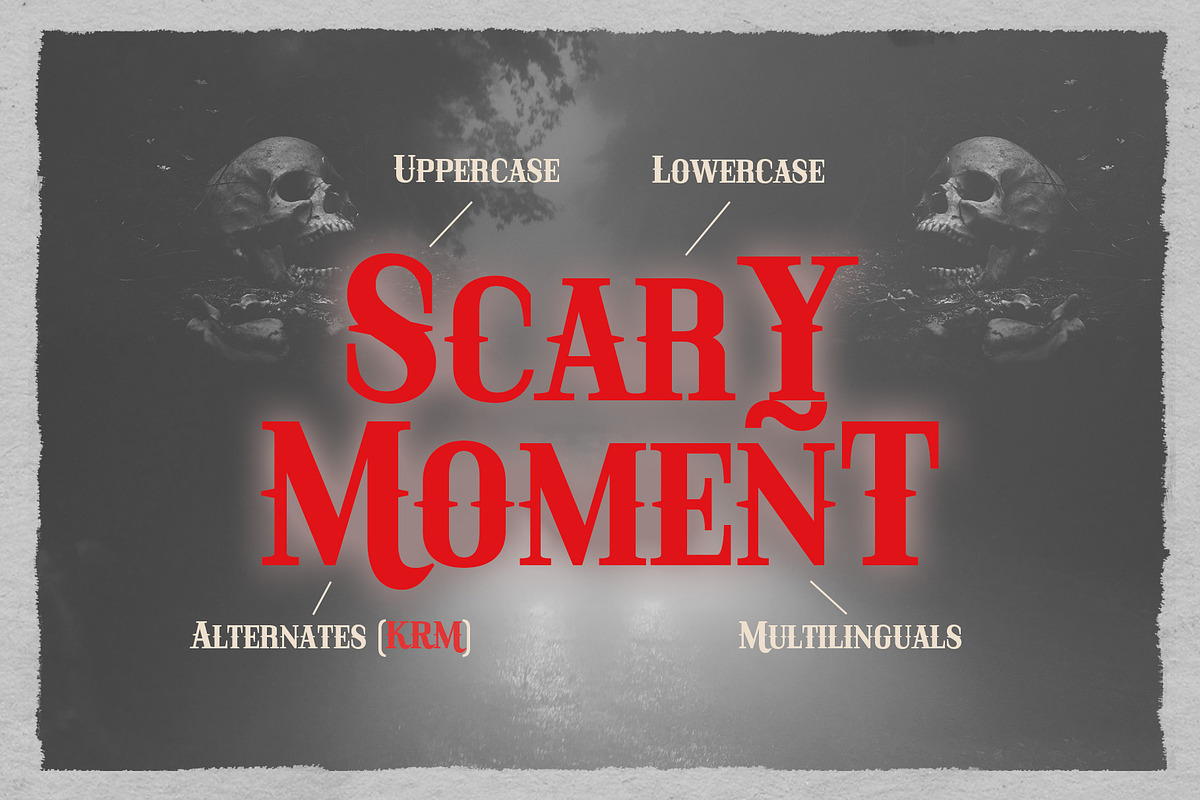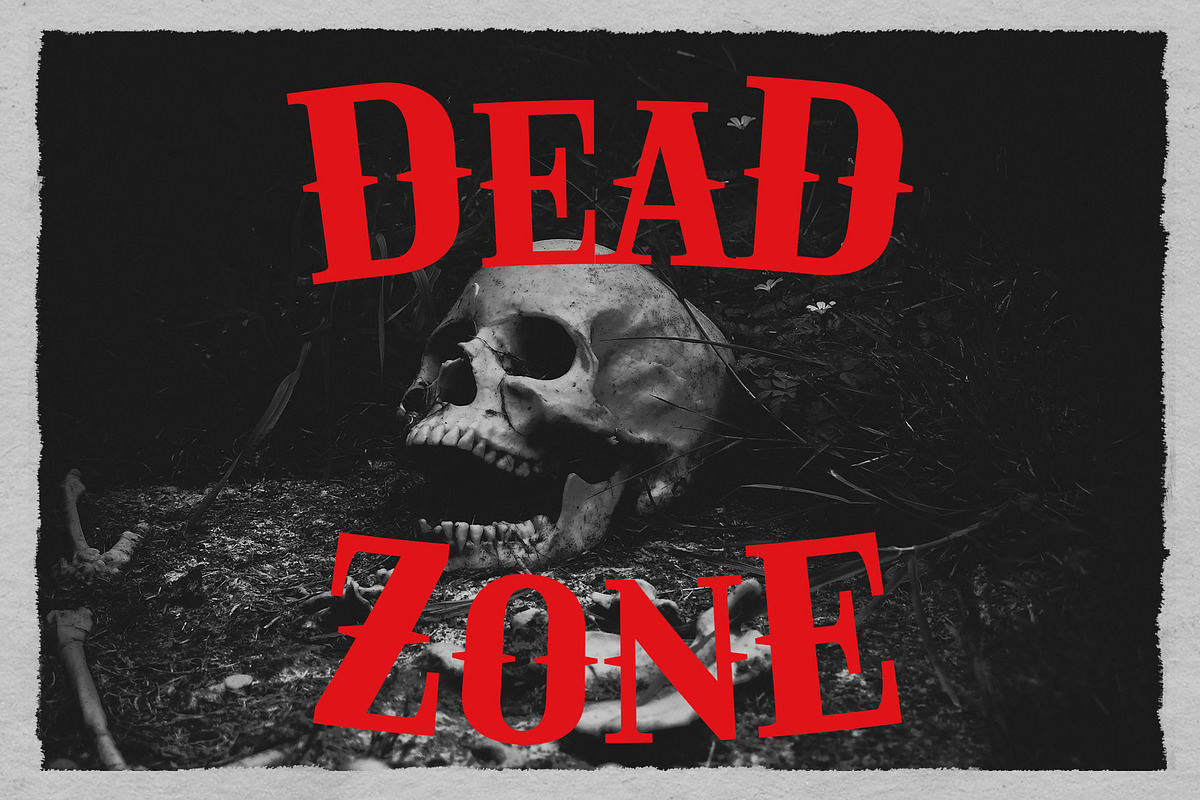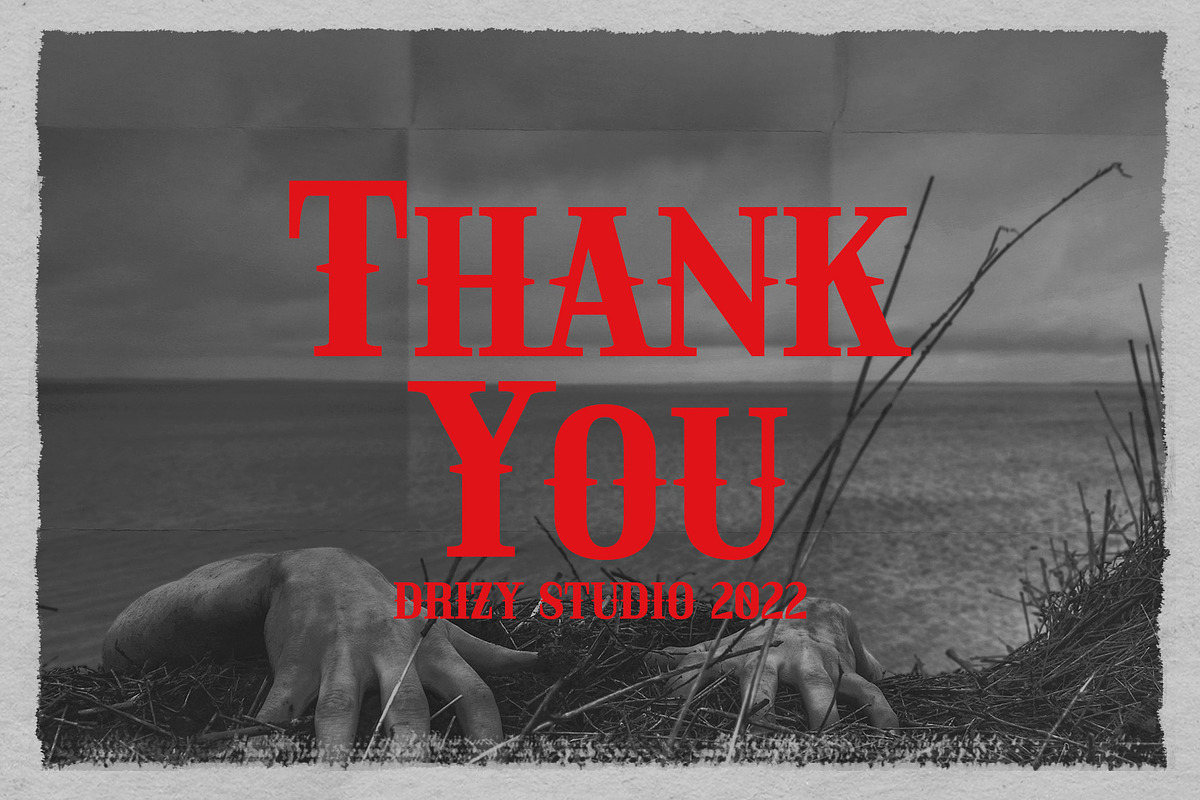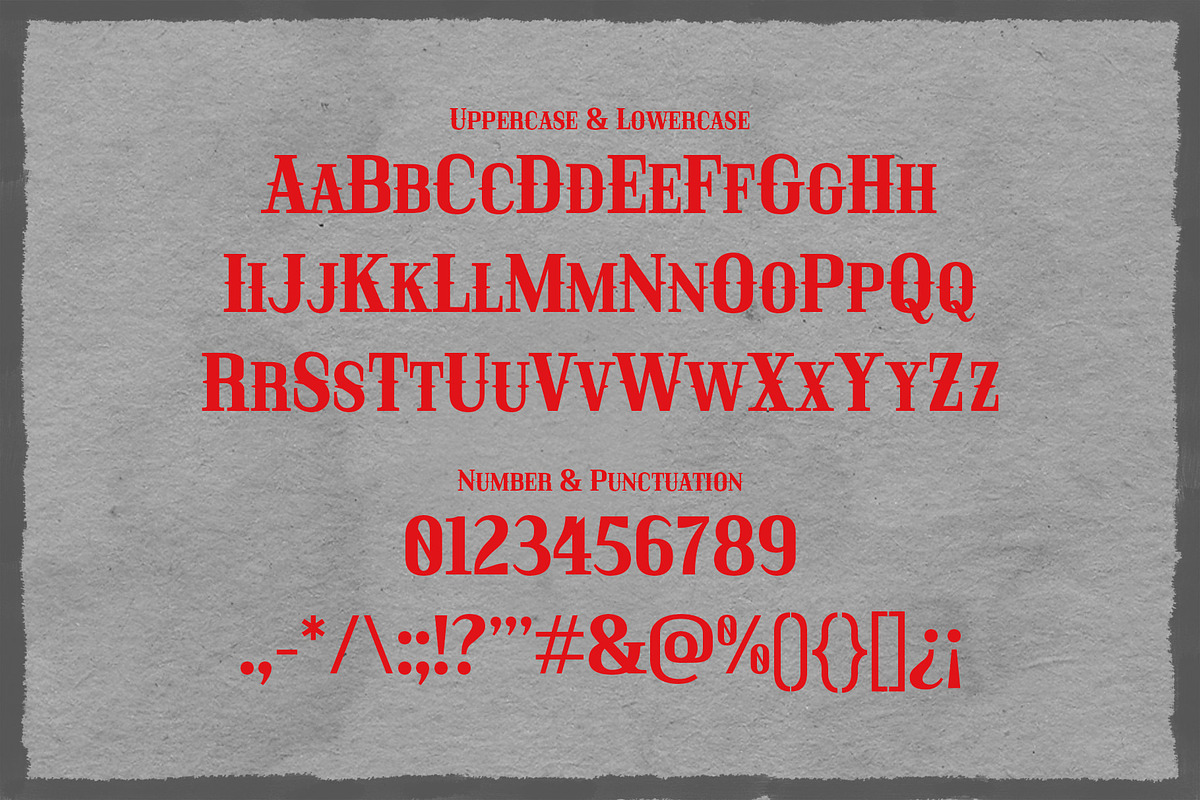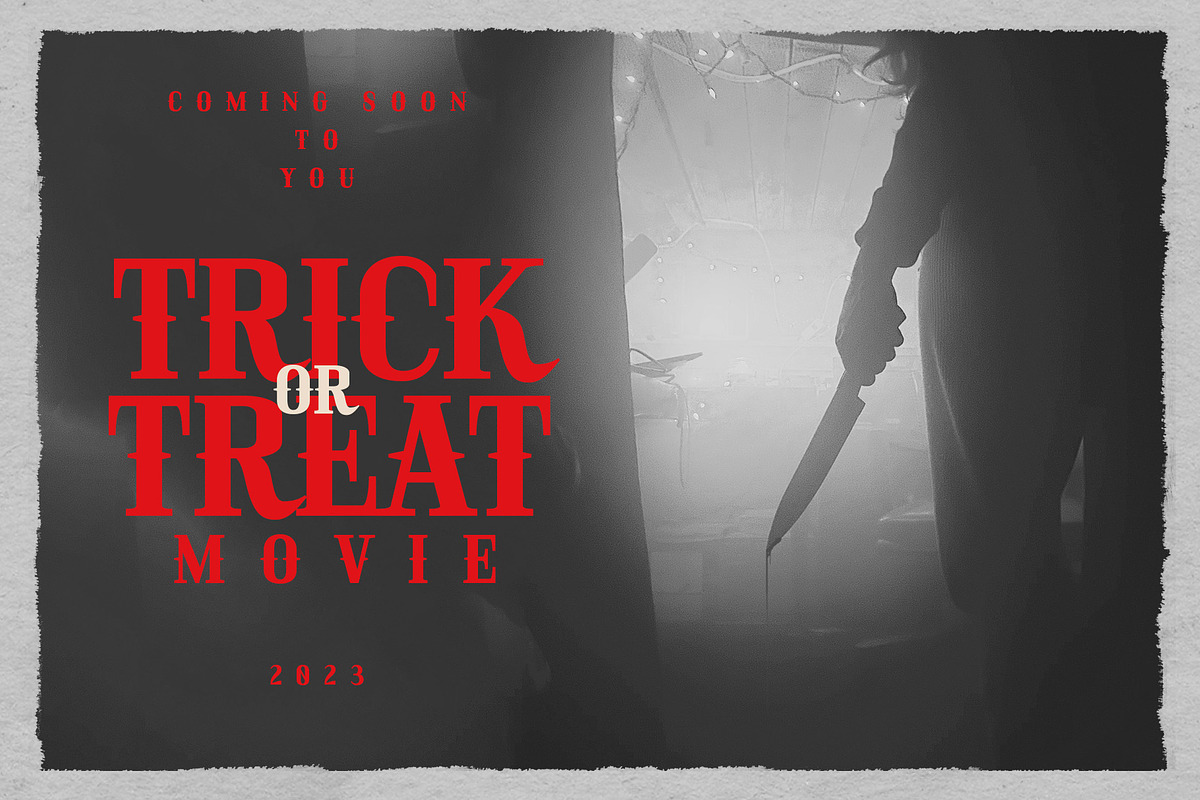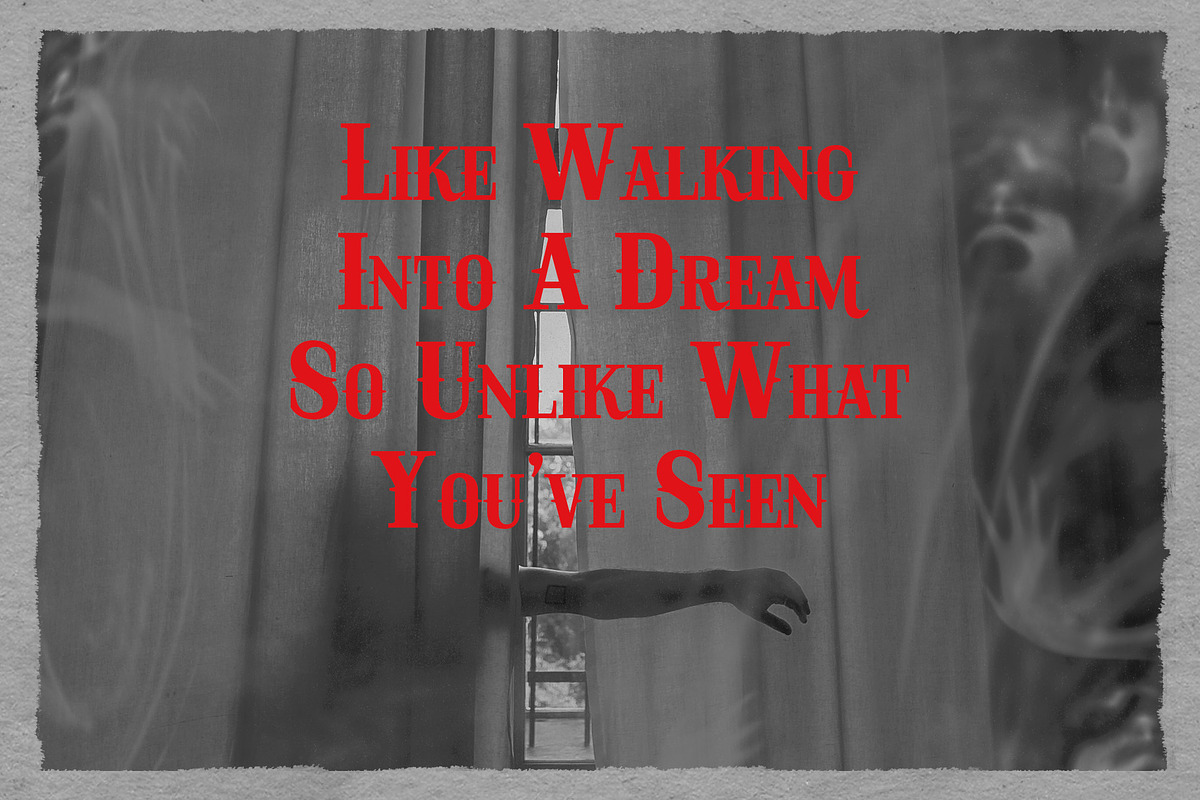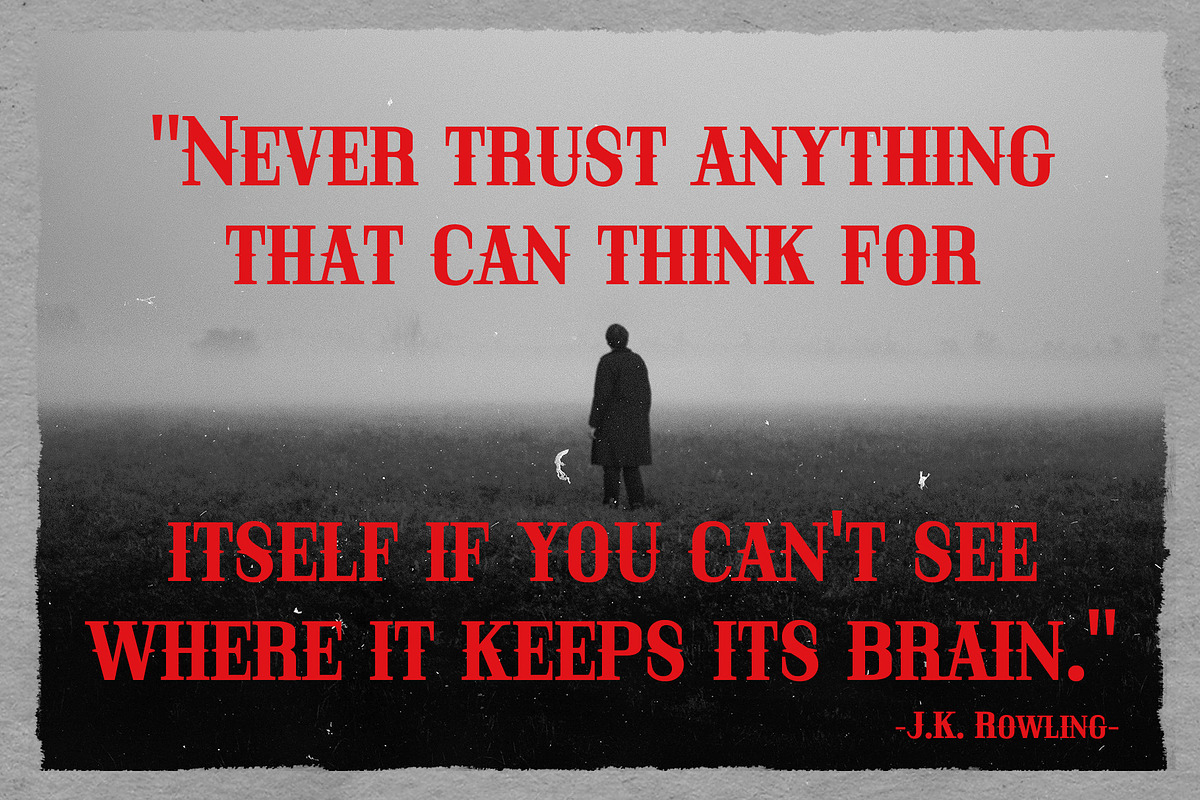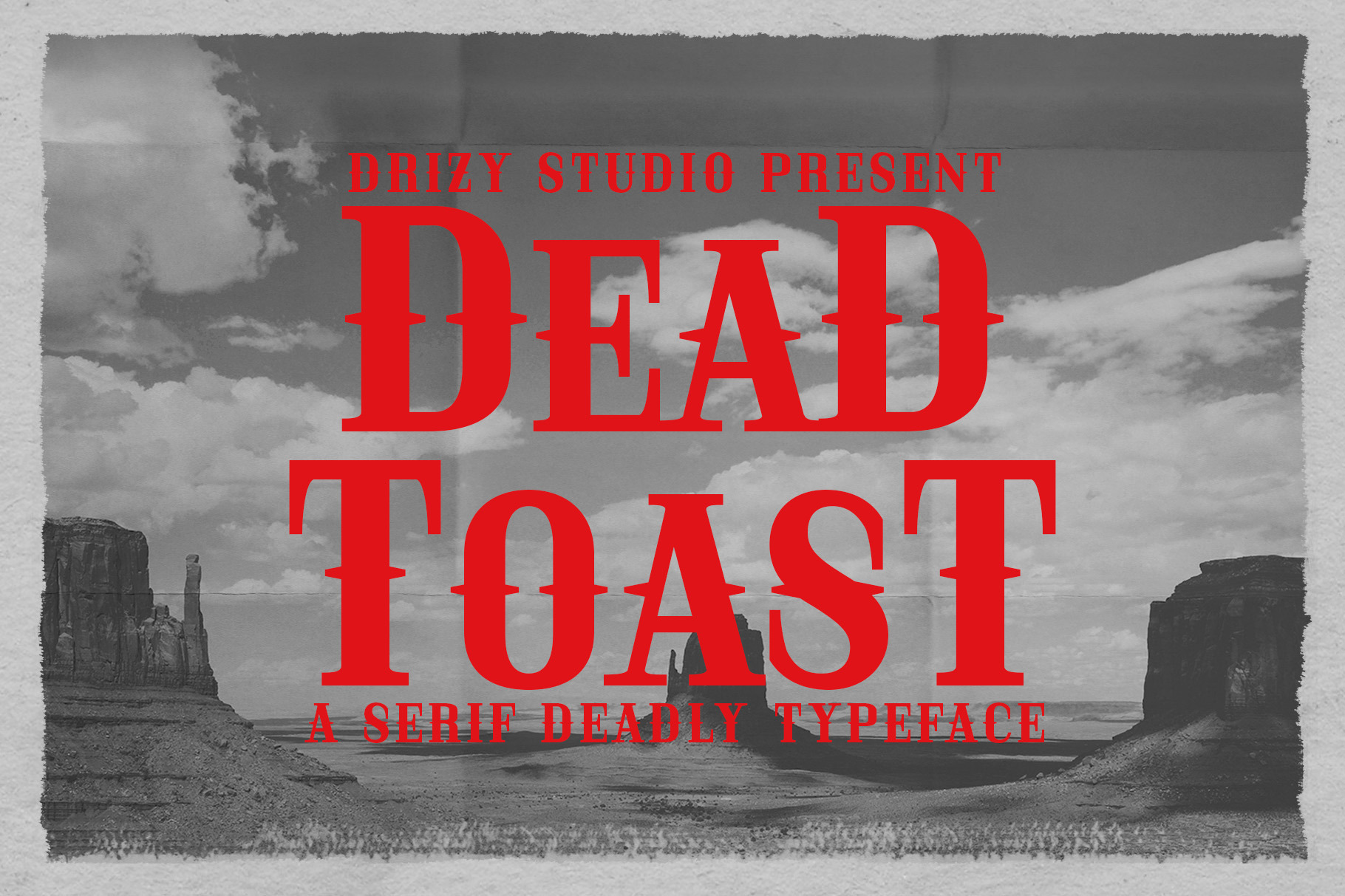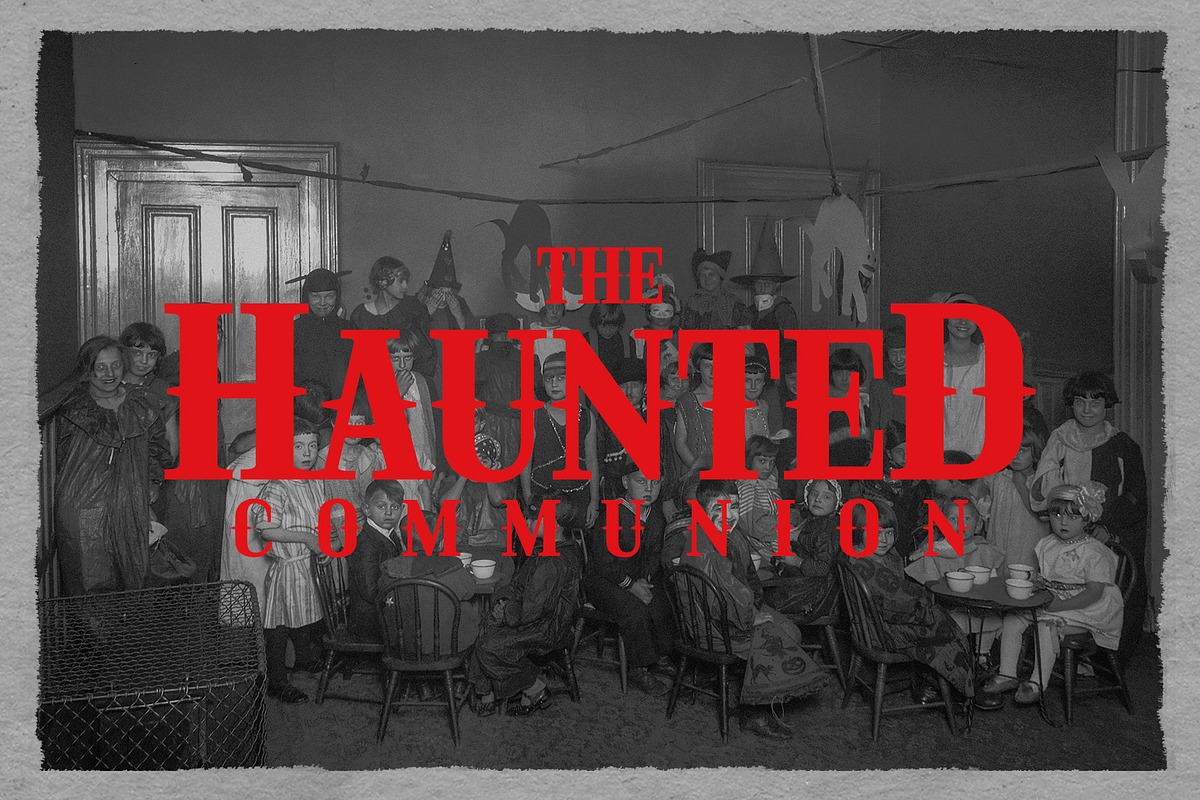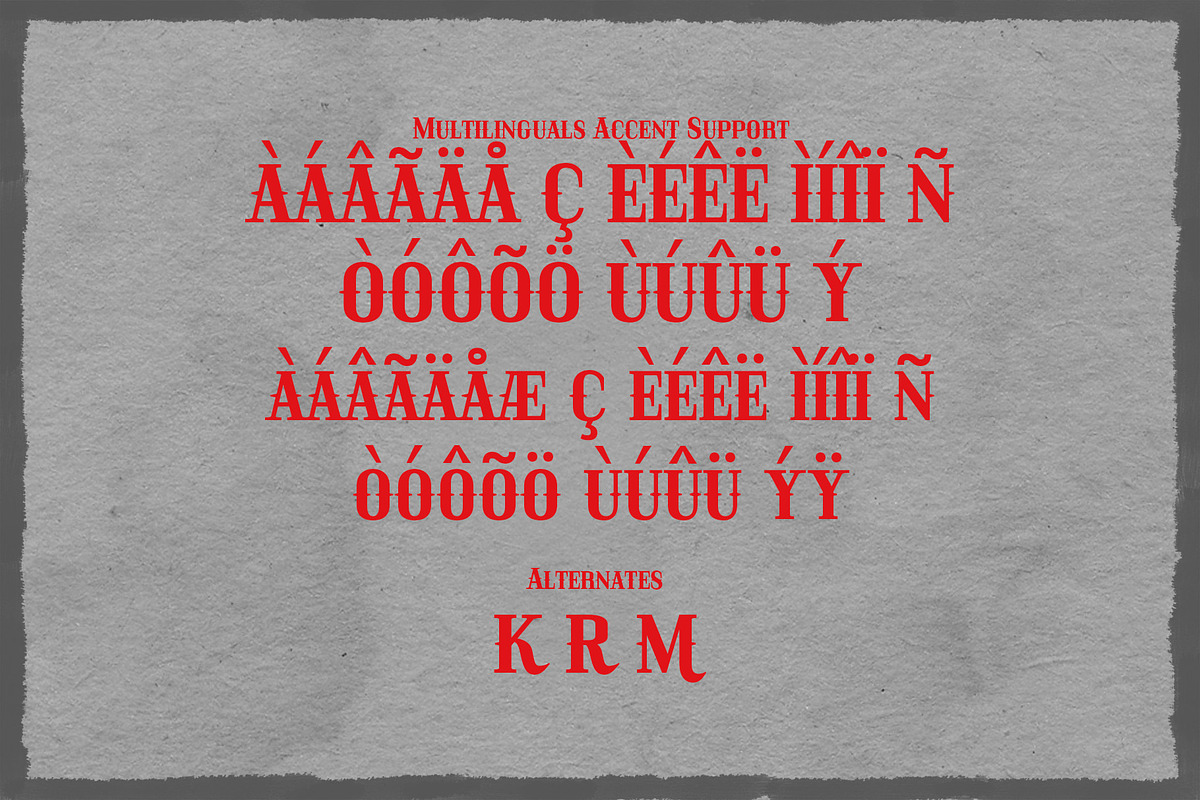
Deadtoast - Deadly Halloween Font
Introducing Deadtoast! A deadly Halloween font from Drizy! It’s suitable for scary Halloween theme of your project.
Deadtoast Features: Uppercase & Lower Case Numeral & Punctuation Multilinguals Alternates